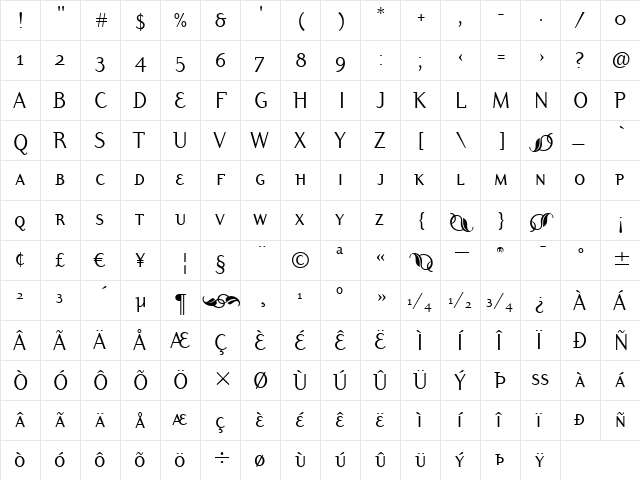
DyadisSCITC TT Book
| Foundry | International Typeface Corporation |
| Designer | Yvonne Diedrich |
Design Context for DyadisSCITC TT Typeface
DyadisSCITC TT is a composed and adaptable typeface that performs quietly and consistently across a wide range of design contexts.